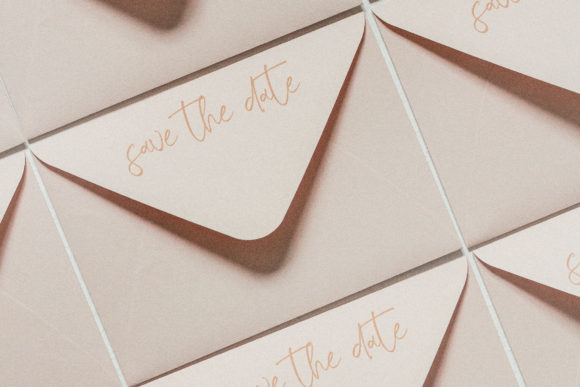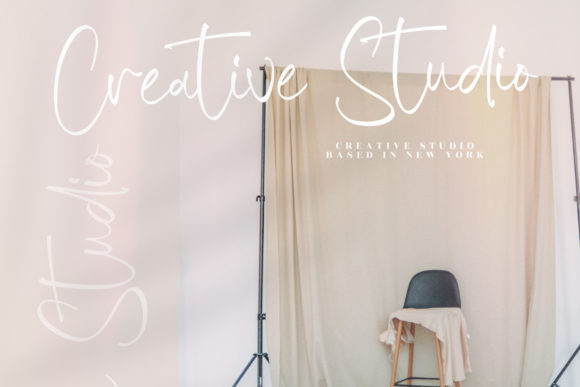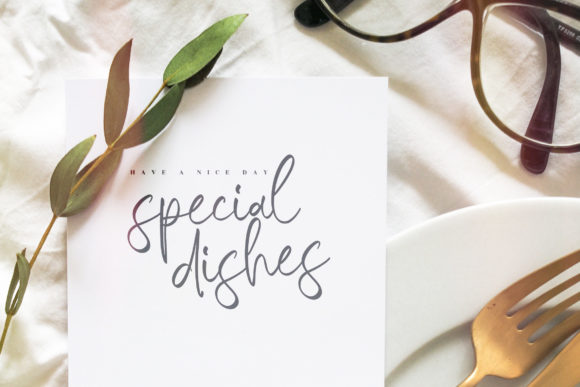
Introduction to Rotherdam Font
As a designer, there’s nothing quite like the thrill of bringing a creative project to life. The moment when all the pieces come together, and your vision takes shape – it’s pure magic. But what if you had the perfect tool to elevate your designs and make them truly unforgettable? Enter the Rotherdam Font, a stunning handwritten font that’s sure to captivate your audience.
With its elegant touch and timeless style, the Rotherdam Font is the perfect addition to any design resource. Whether you’re working on a free download project or a high-end commercial design, this font is sure to bring a touch of sophistication and class. And the best part? It’s PUA encoded, making it easy to access all the amazing glyphs and ligatures you need to create truly spectacular designs.
Key Features of Rotherdam Font
- Unique, hand-drawn design suitable for creative projects
- High-quality font with transparent background, ideal for digital design
- Includes 6 font styles: Regular, Italic, Bold, Bold Italic, Outline, and Shadow
Honest Review: Rotherdam Font
As a designer, I’m always on the lookout for high-quality design resources to enhance my creative projects. Recently, I had the chance to work with the Rotherdam Font, and I must say it’s a great addition to any design arsenal.
Here’s what I like about it: ✨ The font is incredibly versatile and can be used in a variety of contexts, from headings to body text. The transparent background makes it easy to layer over images or other design elements. And the best part? It’s free to download, making it a fantastic resource for designers on a budget.
Some potential limitations to keep in mind: ⚠️ While the font is high quality, it may not be suitable for use in professional printing or large-scale applications. Additionally, the font’s design may not be to everyone’s taste – it’s quite bold and eye-catching, so it’s best suited for creative projects that need a statement piece.
Overall, I’m impressed with the Rotherdam Font and would recommend it to designers looking for a free, high-quality design resource. Just be aware of its limitations, and you’ll be all set for a great creative project!
- Perfect for creative projects
Common Use Cases for Rotherdam Font
Rotherdam Font is ideal for:
1. Branding and marketing materials.
2. Creative projects, such as posters and flyers.
3. Web design and development.